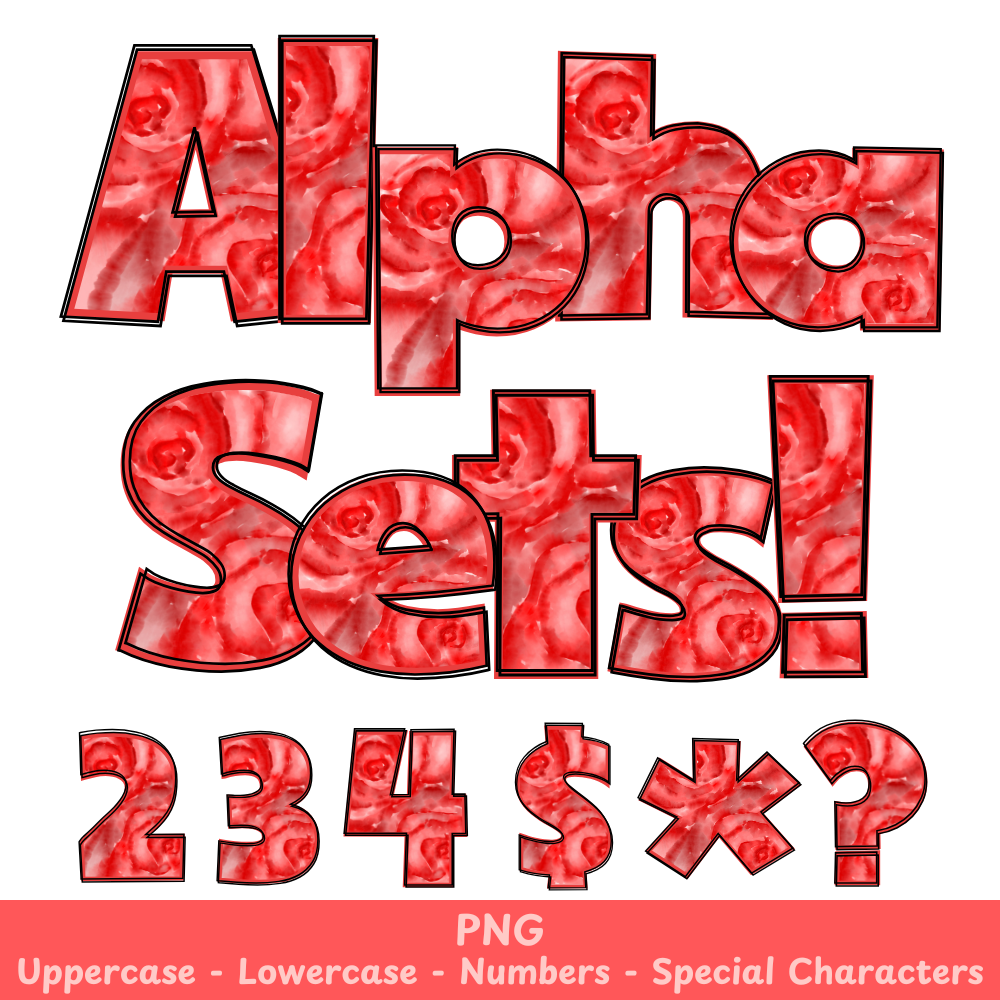
Red Flowers PNG Font
Red Flowers Alpha Set PNG Font Pack
This Red Flowers PNG Font is the perfect addition to any crafting or sublimation project. Made with high-quality graphics, this font will add a unique touch to your designs. Use it to create beautiful invitations, logos, and more. Get creative and elevate your designs with this one-of-a-kind font.